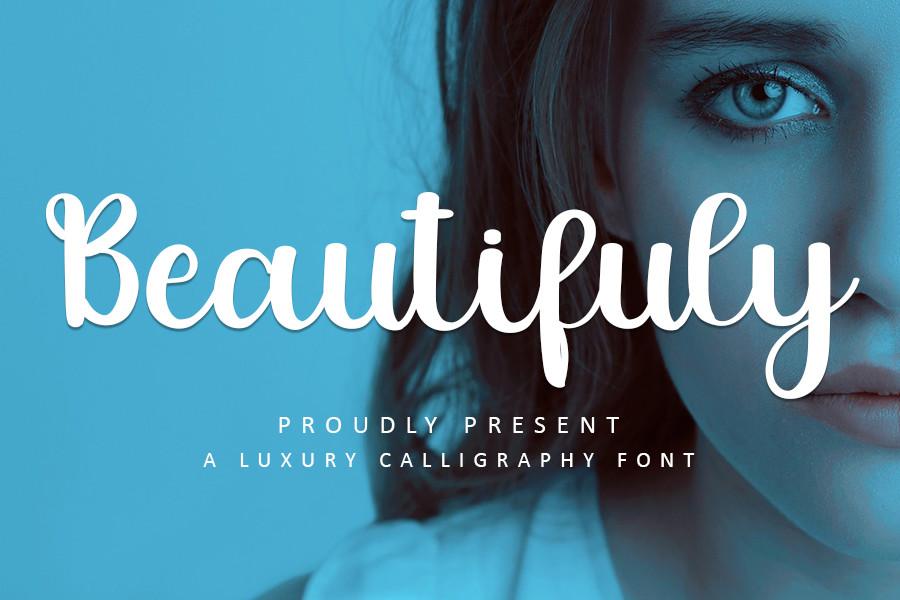
Beautifuly Font Description
Beautifuly is a delicate, elegant and flowing handwritten font. It has beautiful and well balanced characters and as a result, it matches a wide pool of designs. Add it to your most creative ideas and notice how it makes them come alive!